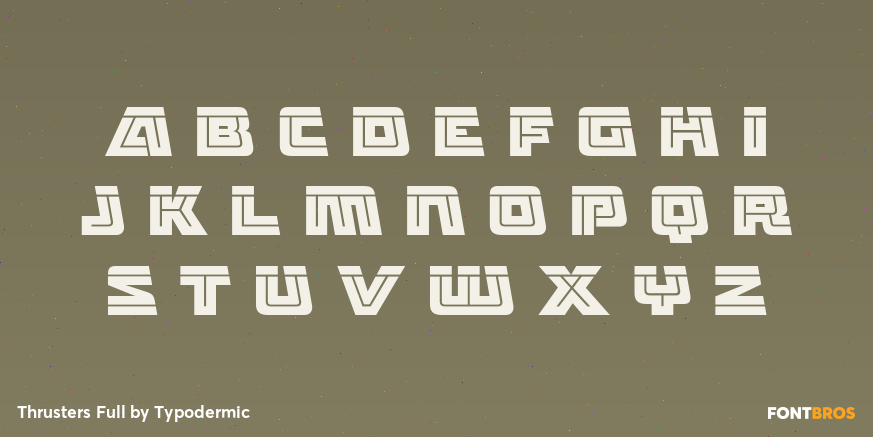
Thrusters Full
Buy NowThrusters Full combines the family’s upper band and routed internal construction into a complete twin-line display form. The aligned divisions become visible graphic features rather than hidden layer boundaries, giving short words the appearance of decals, machine markings, and early-arcade emblems even in a single color.
Use Thrusters Full for RC model names, rocket-kit titles, kart and watercraft graphics, arcade marquees, tournament identities, and large motion titles that need the complete Thrusters design without assembling separate components. Its detailed channels need display scale, while a straightforward sans serif can carry specifications, schedules, and instructions.